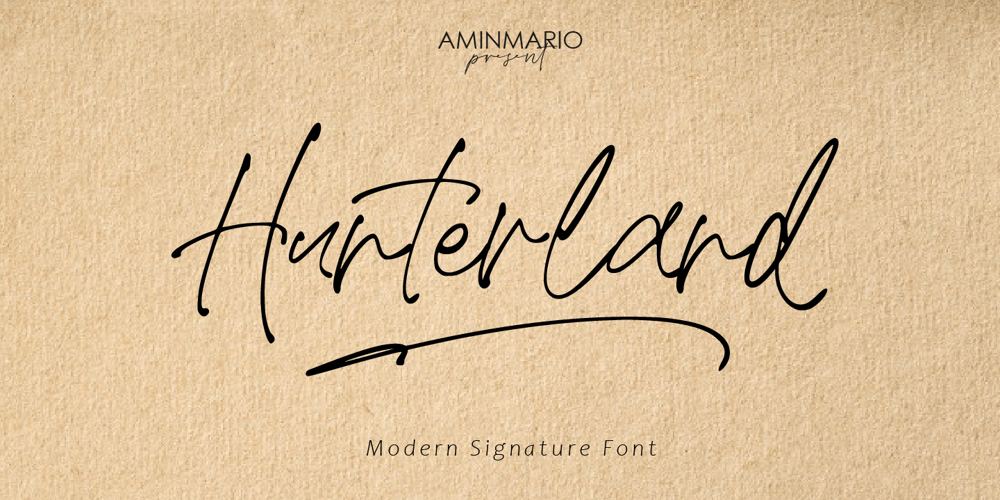
Hunterland
Hunterland font
Hunterland Font Family was designed by Amin Maryono and published by Aminmario Studio. Hunterland contains 2 styles and family package options. Hunterland is a modern signature font. This font was created to look as close to a natural handwritten as possible by including some alternates lowercase, ligature and underlines. Perfect for any awesome projects that need hand writing taste.Comes with regular and italic. Built in Opentype features, this script comes to life as if you were writing it yourself. Also support multilingual.It’s highly recommended to use it in opentype capable software – there are plenty out there nowadays as technology catches up with design … Other than Photoshop, Illustrator and Indesign, many standard simple programs now come with Opentype capabilities – even the most basic ones such as Apple’s Text Edit, Pages, Keynote, iBooks Author, etc. Even Word has found ways to incorporate it.AminMario